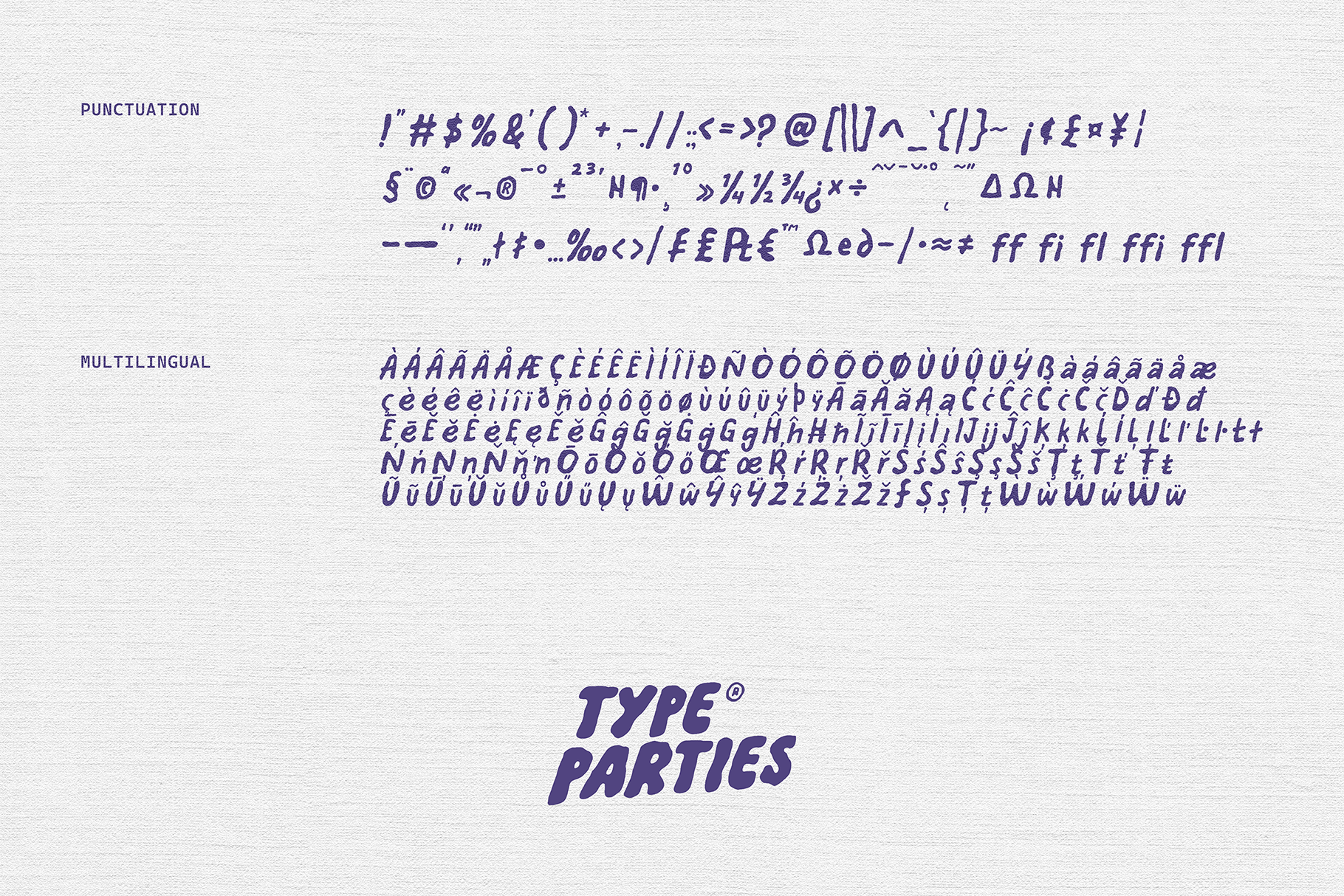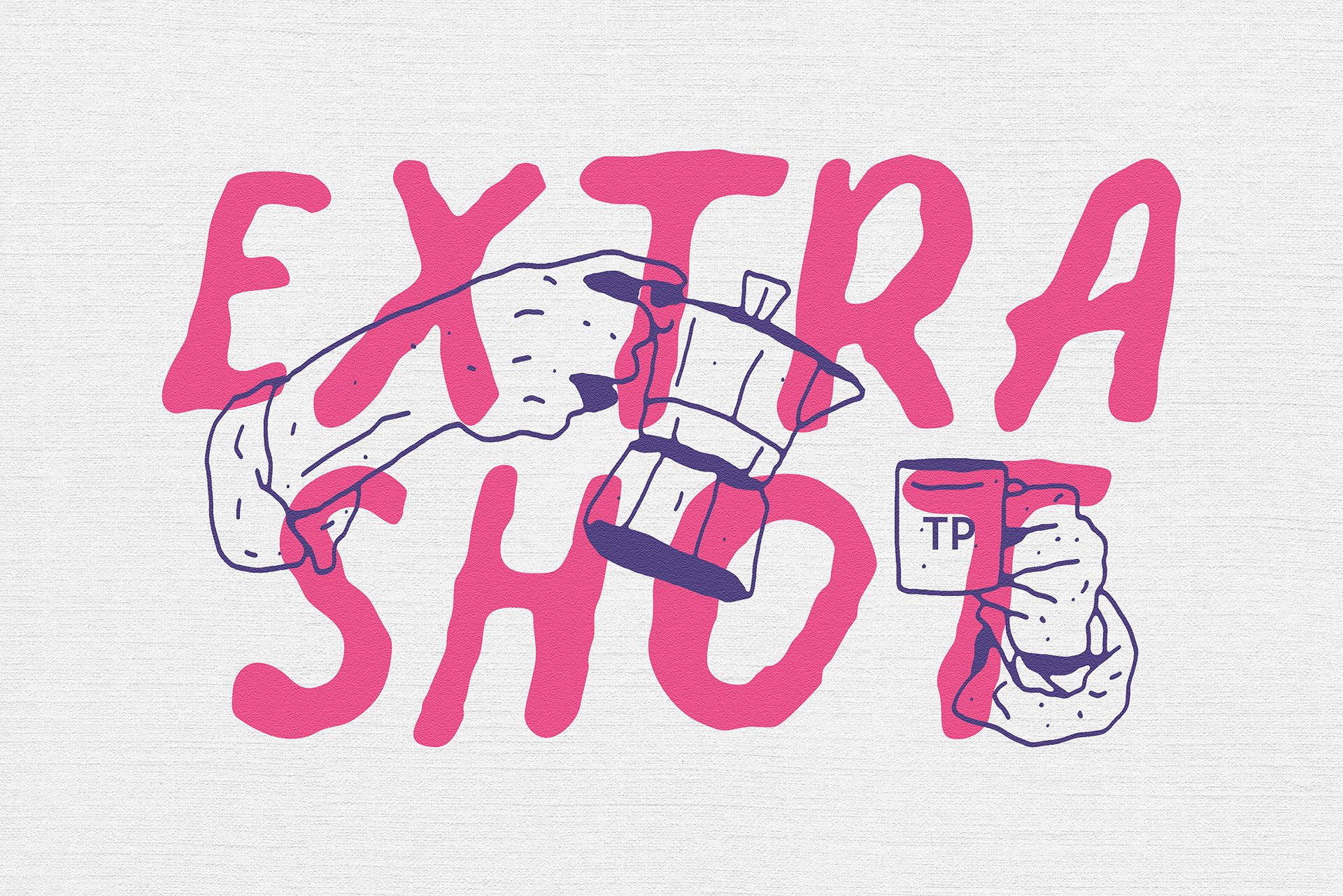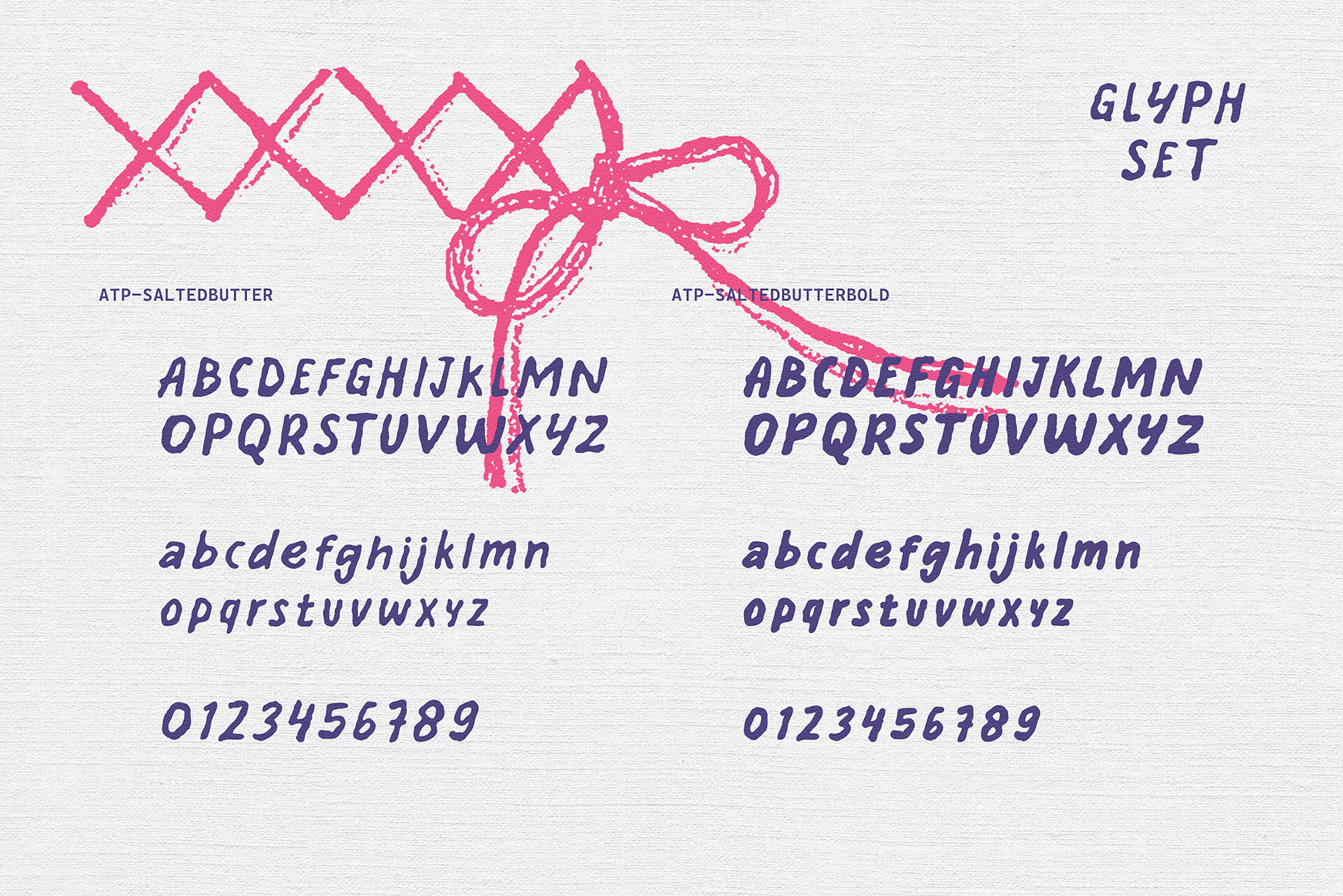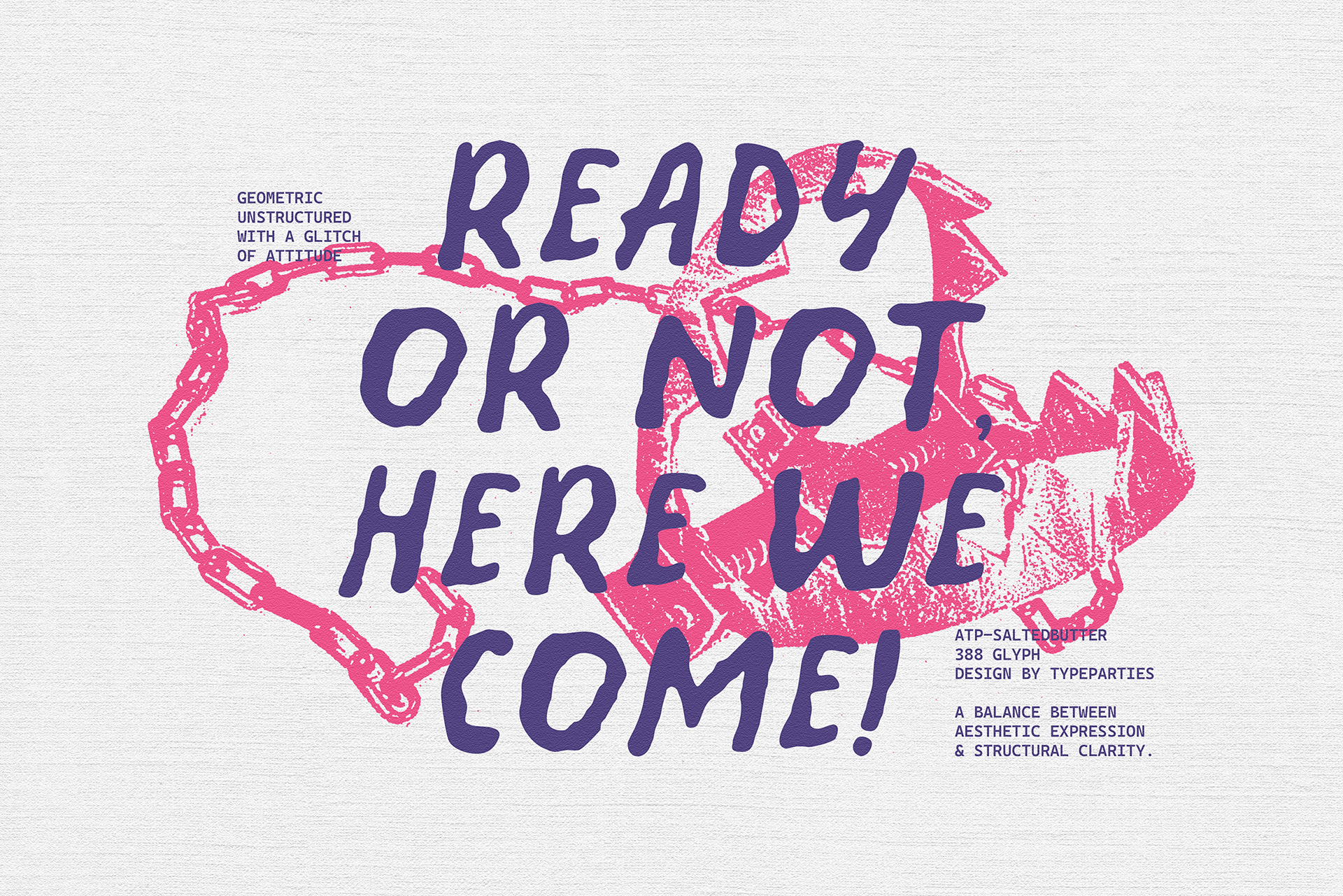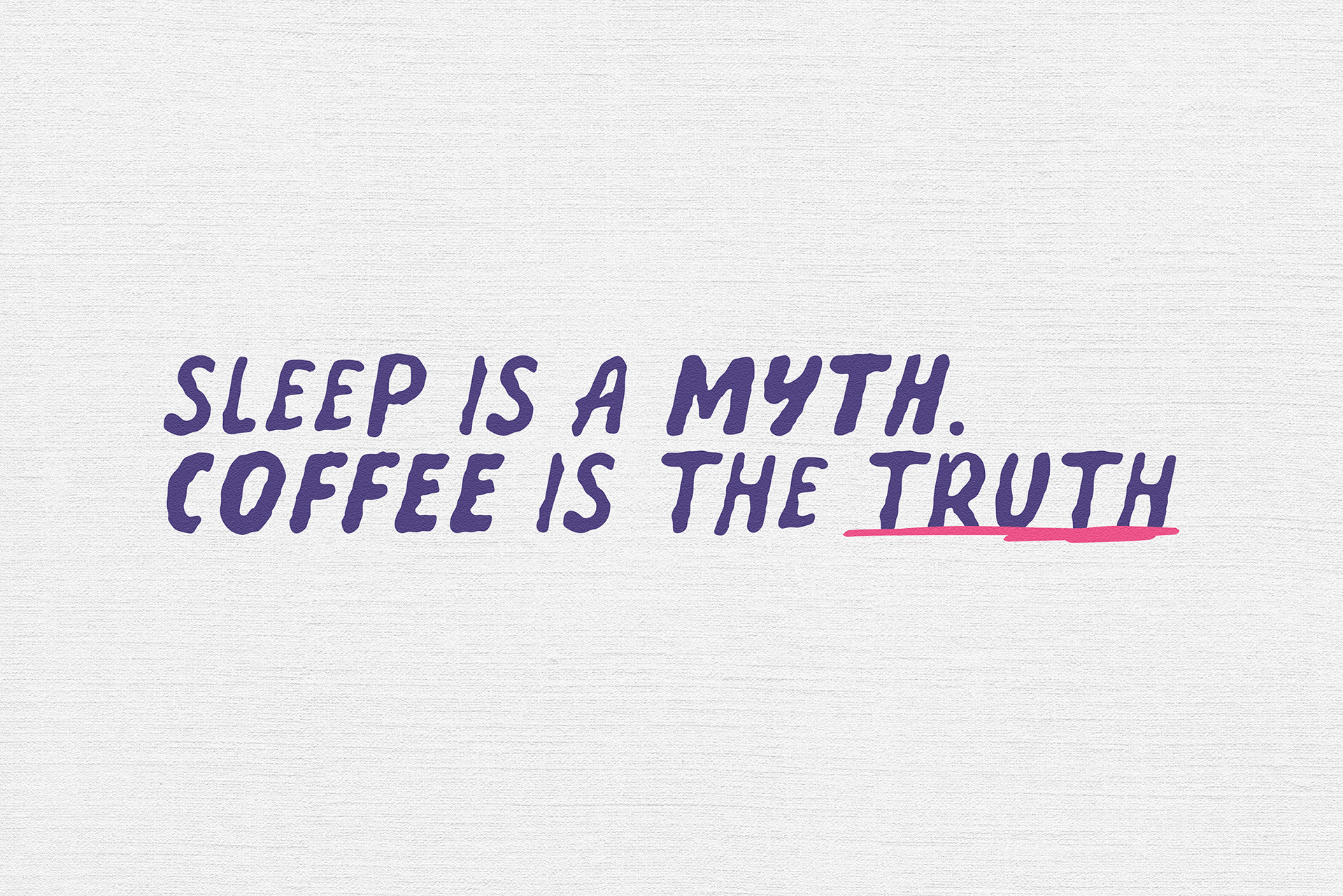
ATP-SaltedButter
Salted Butter is a quirky hand-drawn display font with bold, wavy shapes that feel playful and organic. Perfect for food branding, kids projects, retro posters, packaging, and creative logos.
Uppercase - Lowercase - Numerics - Punctuation - Multilingual